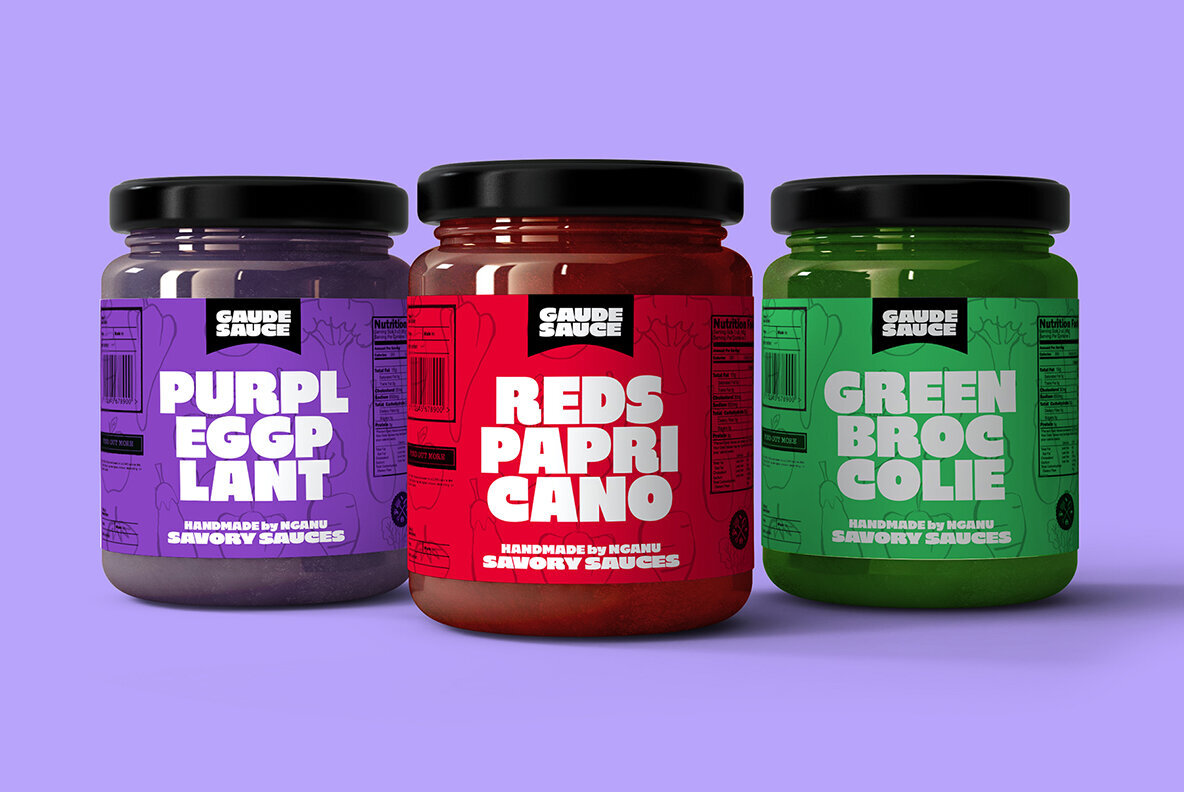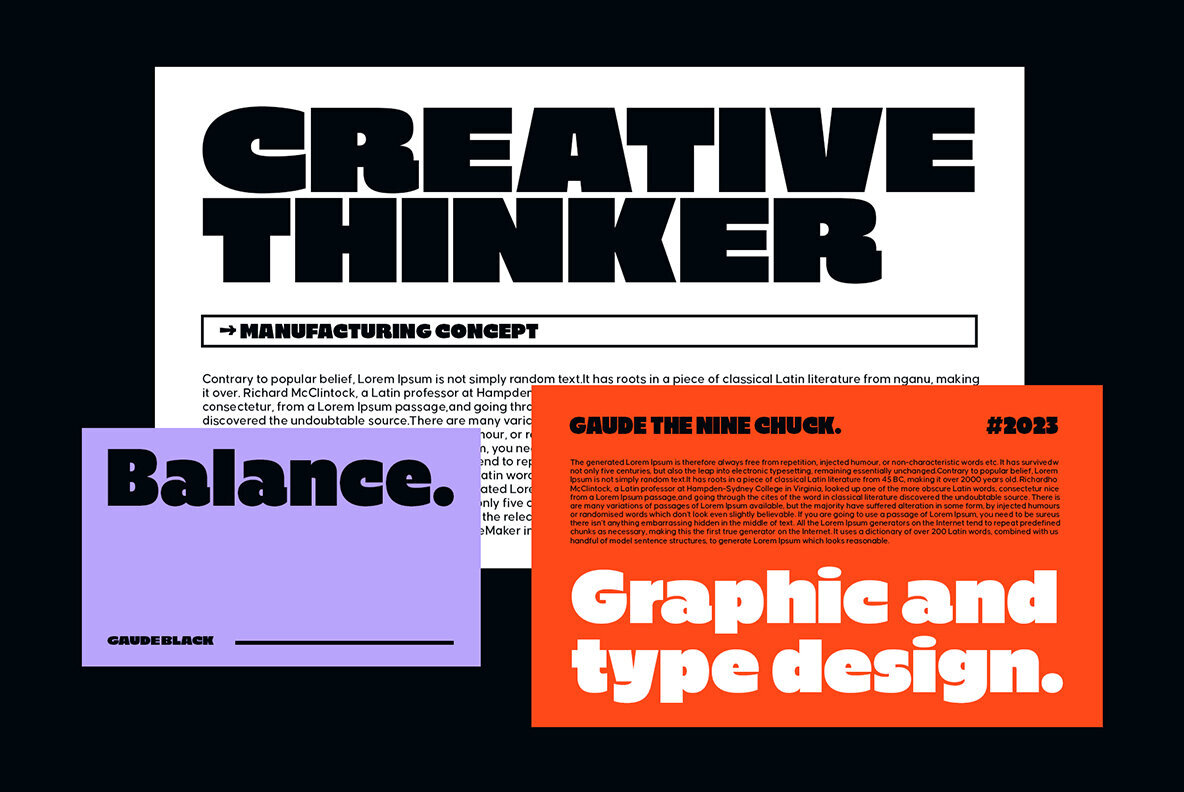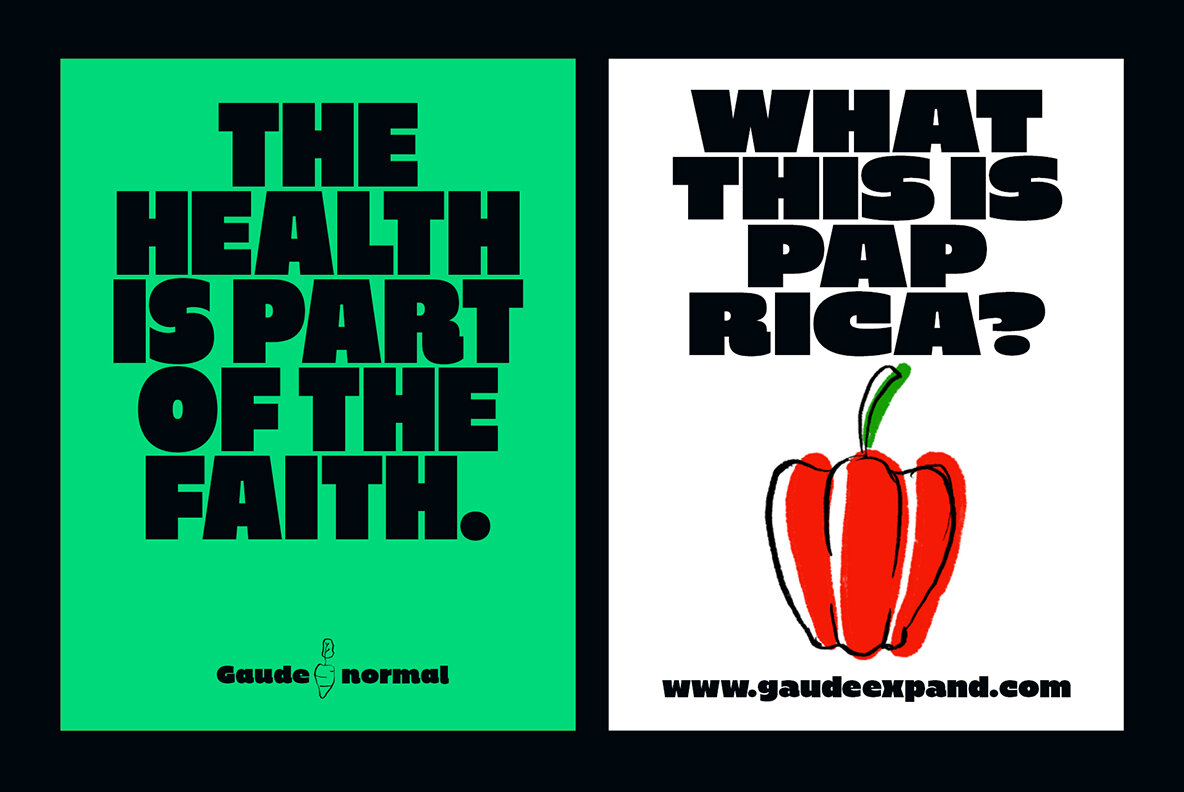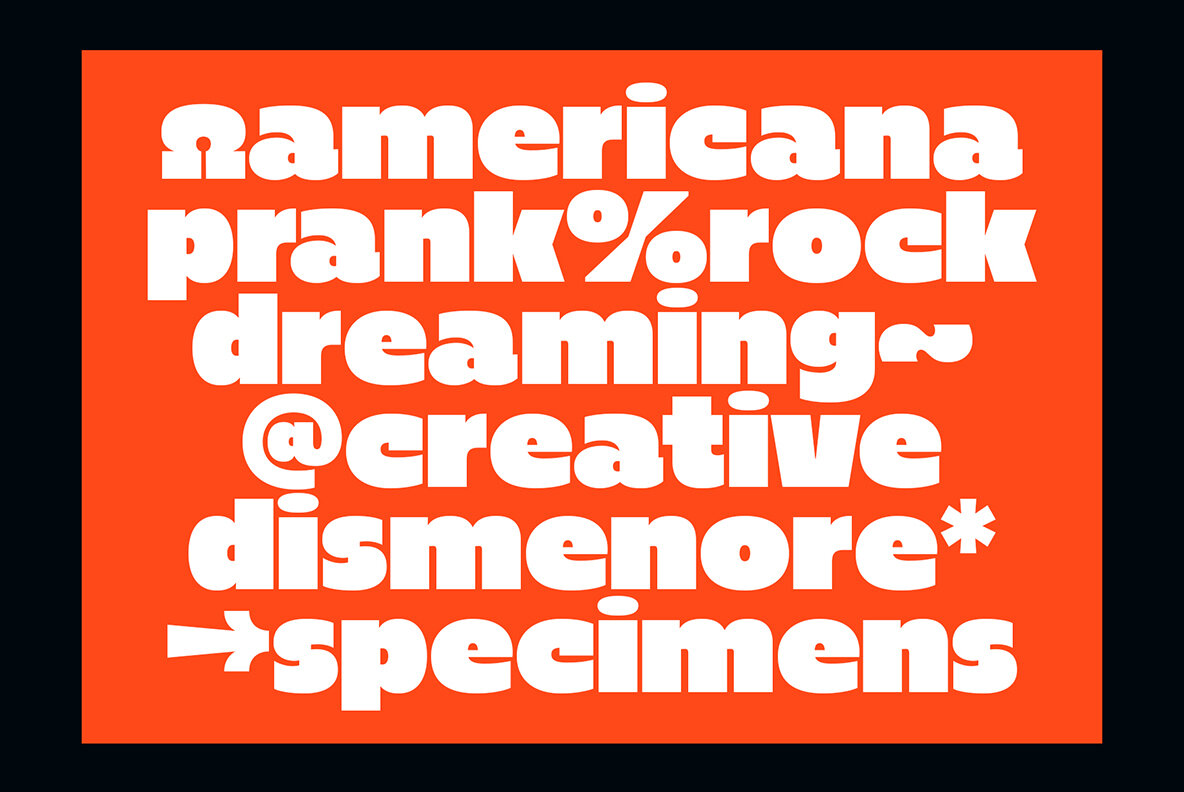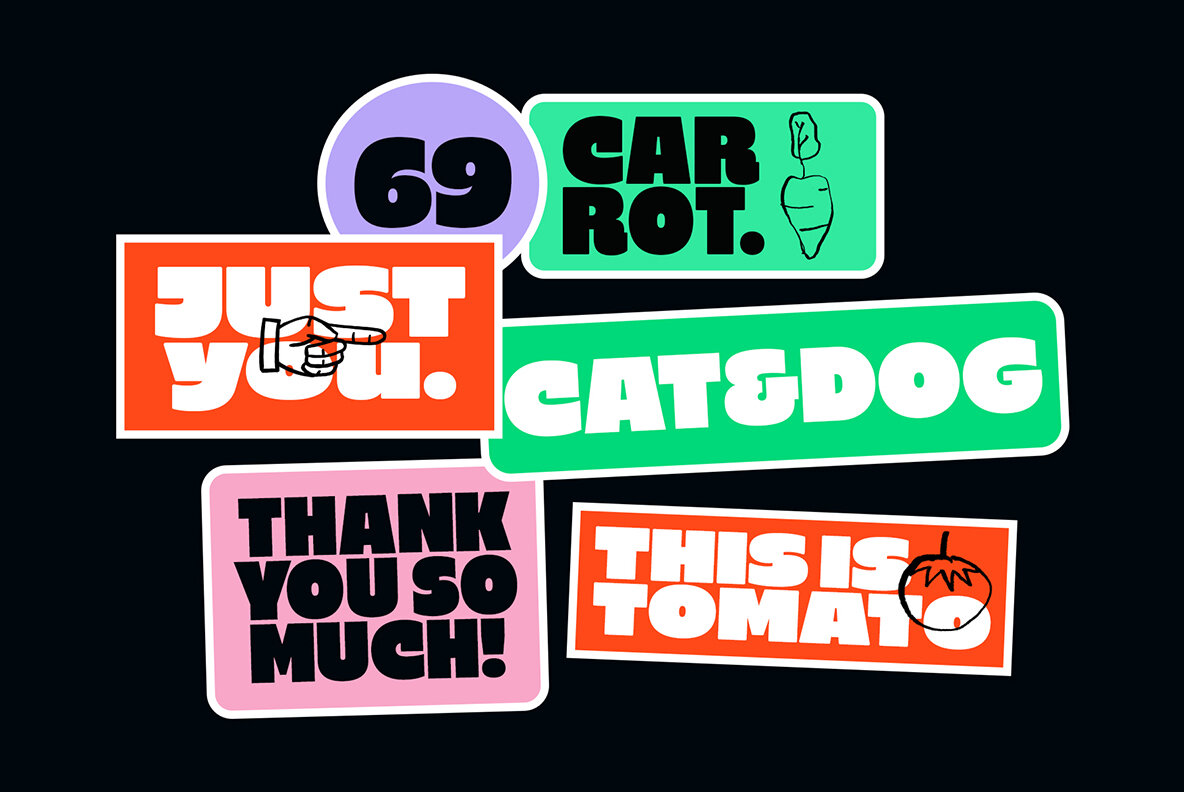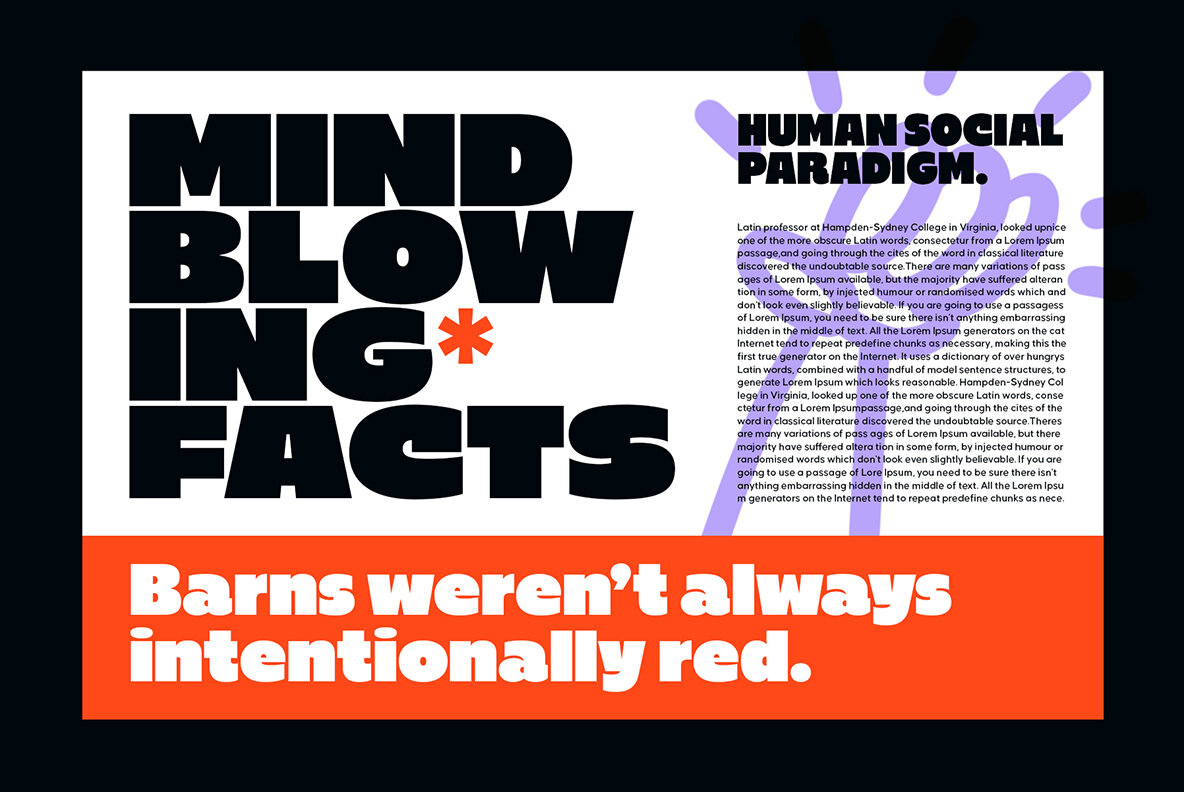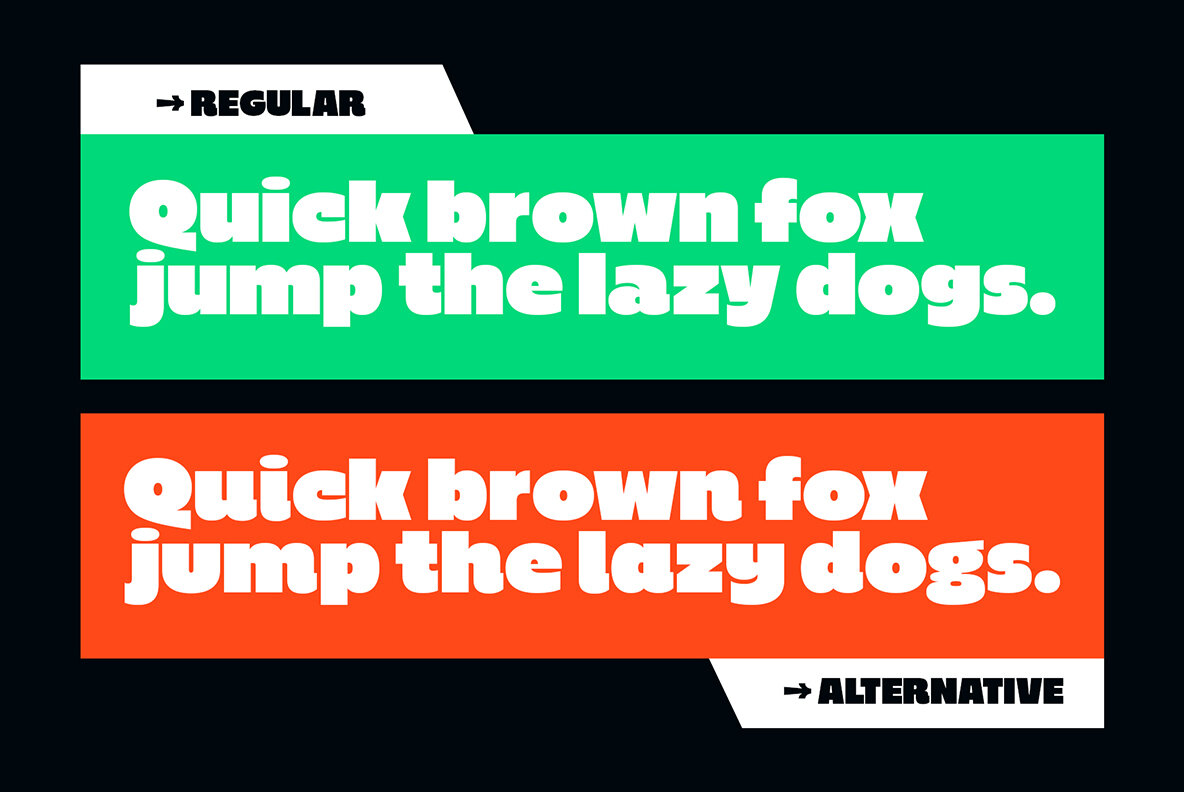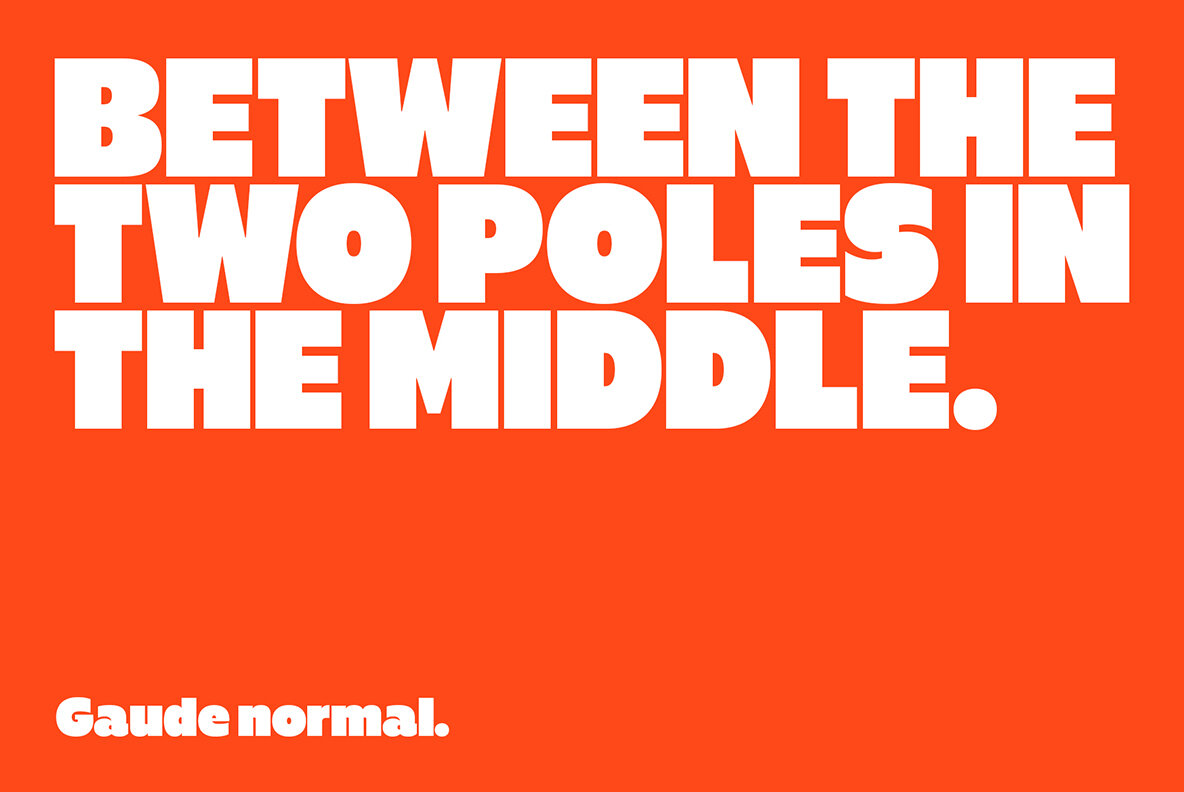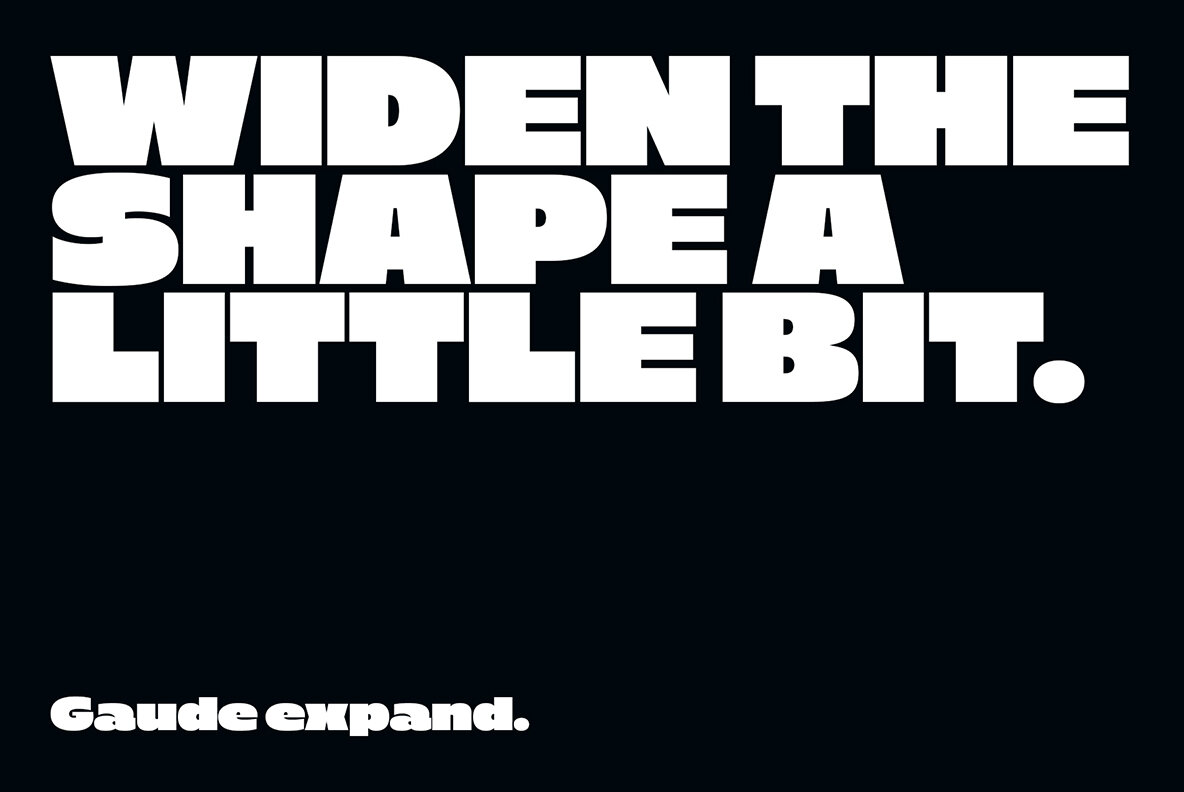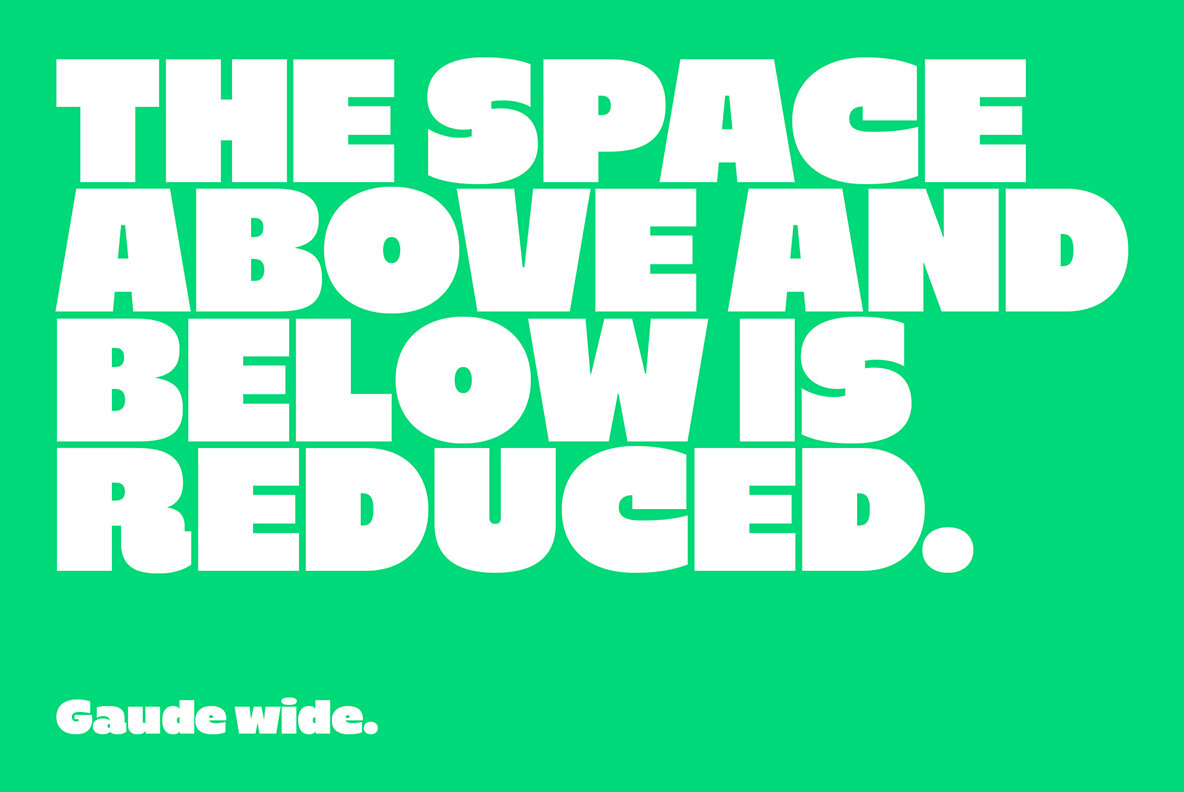
Gaude Font
Gaude is a meticulously crafted sans-serif typeface designed to achieve maximum neatness in form. Its perfect balance between thickness and negative space ensures it reads well in both words and sentences. The addition of alternative glyphs offers a vibrant touch, adding life to your text. Gaude offers three distinct widths—normal, wide, and expanded—enhanced by a soft version, resulting in a total of six unique styles. This makes Gaude highly adaptable for a range of applications, including branding, titling, and headlines.Gaude: A Modern Sans-Serif Typeface with Versatile Styles